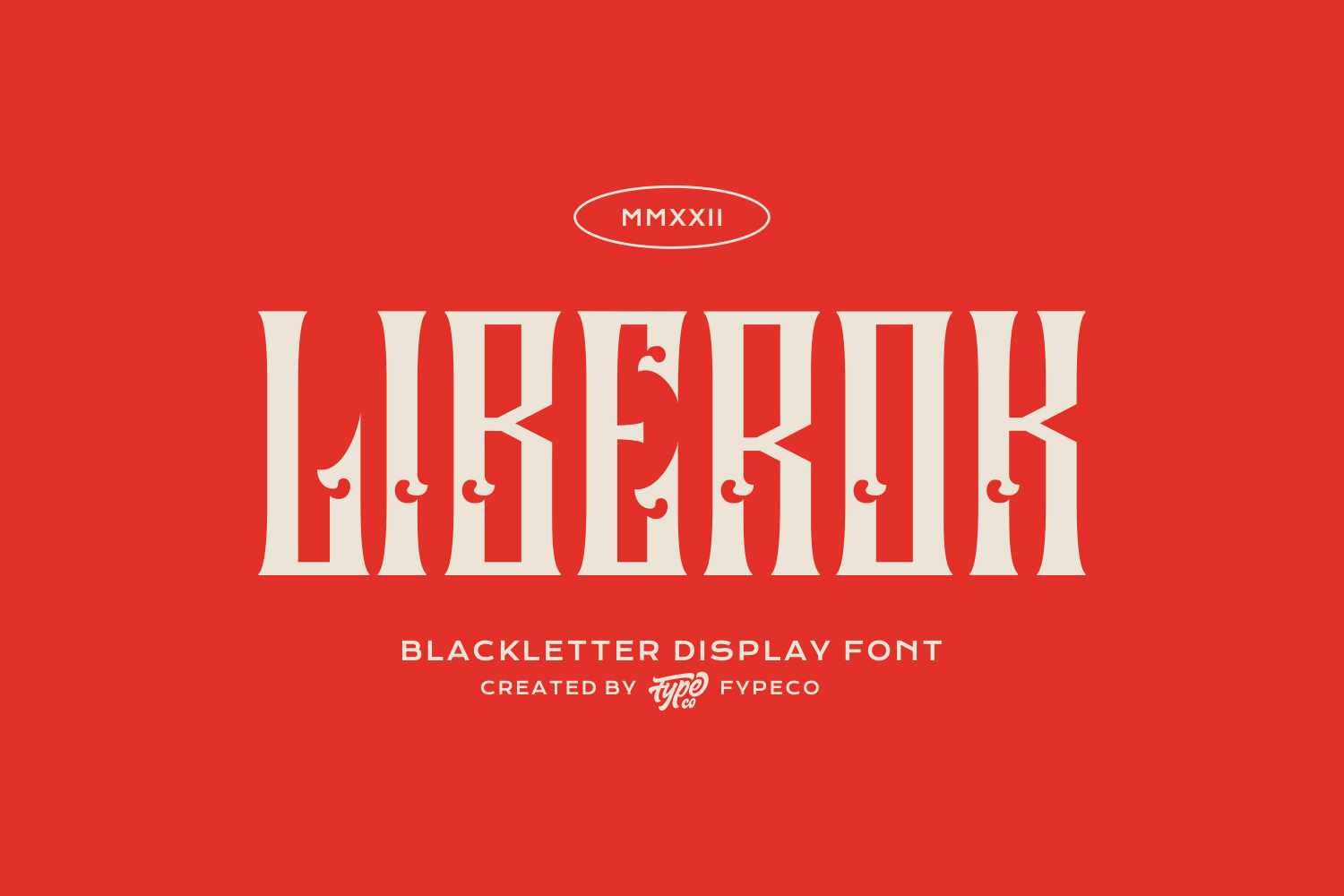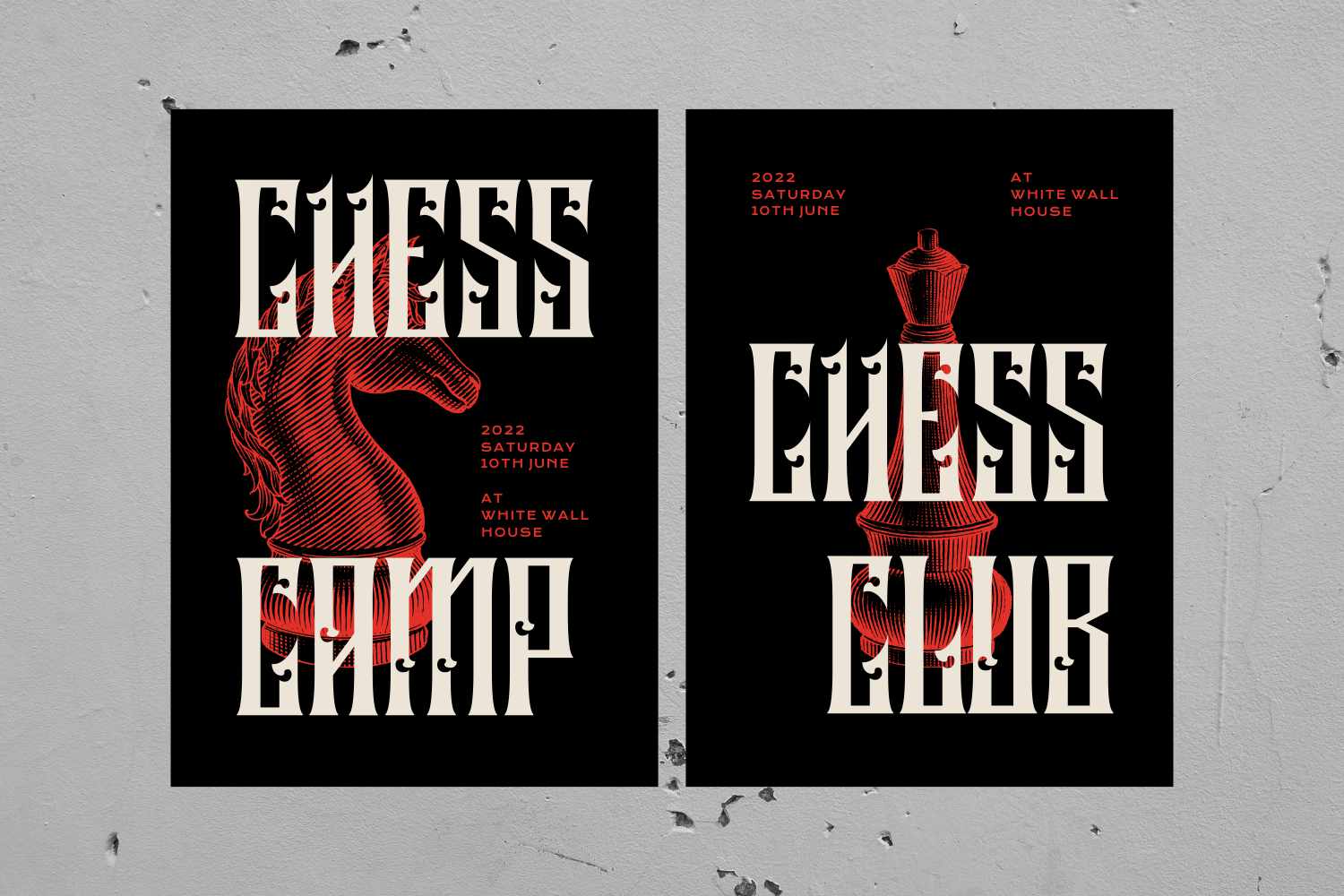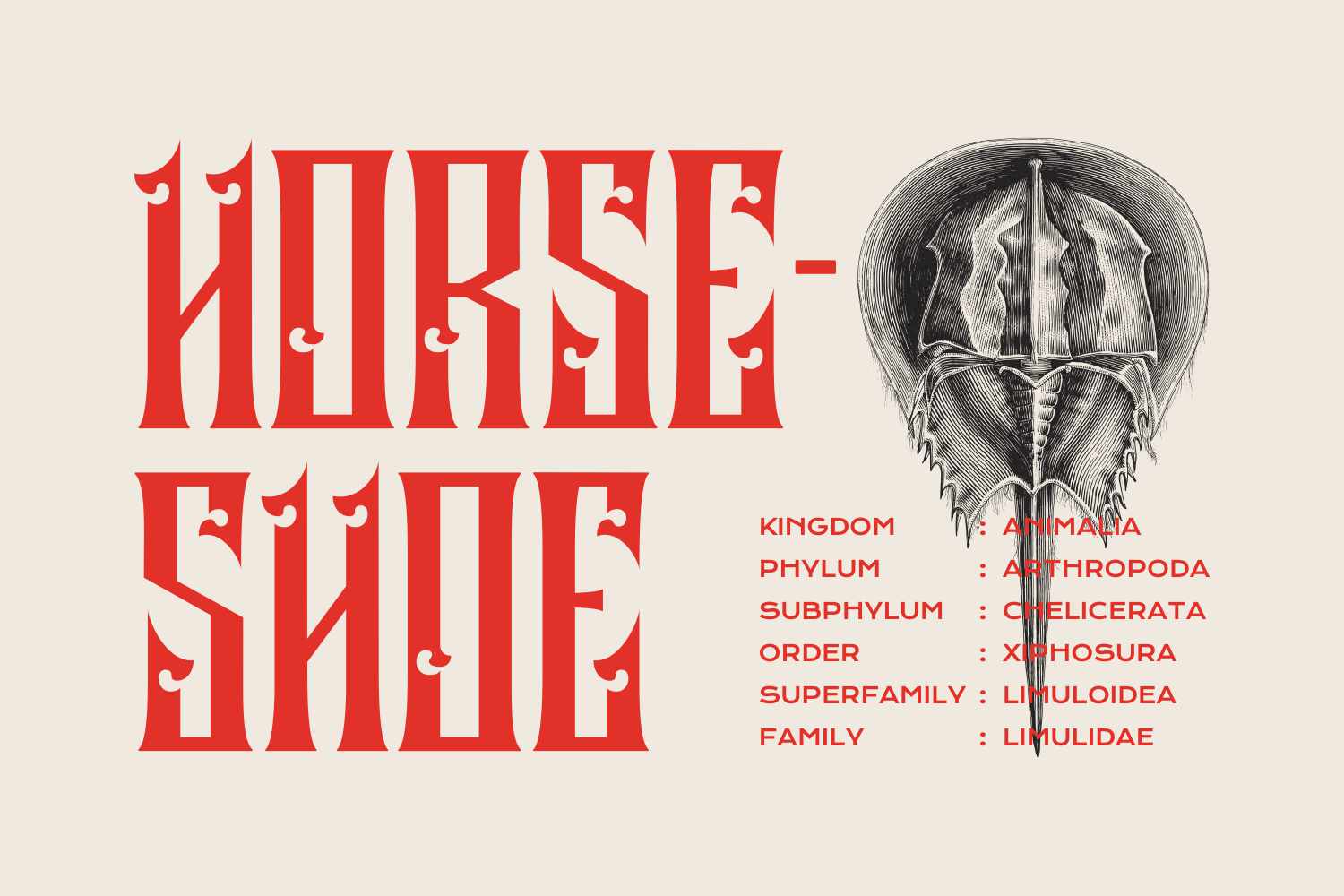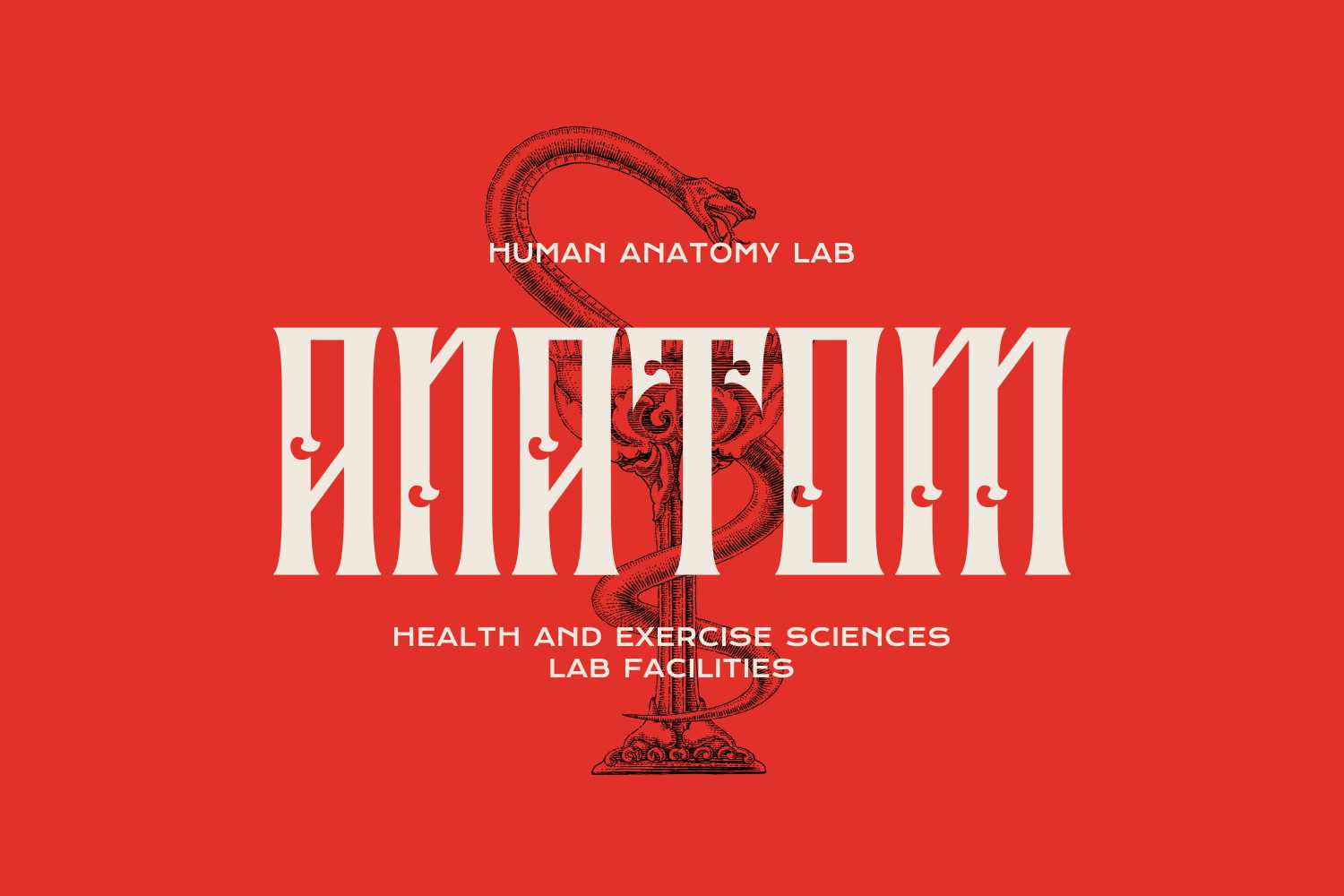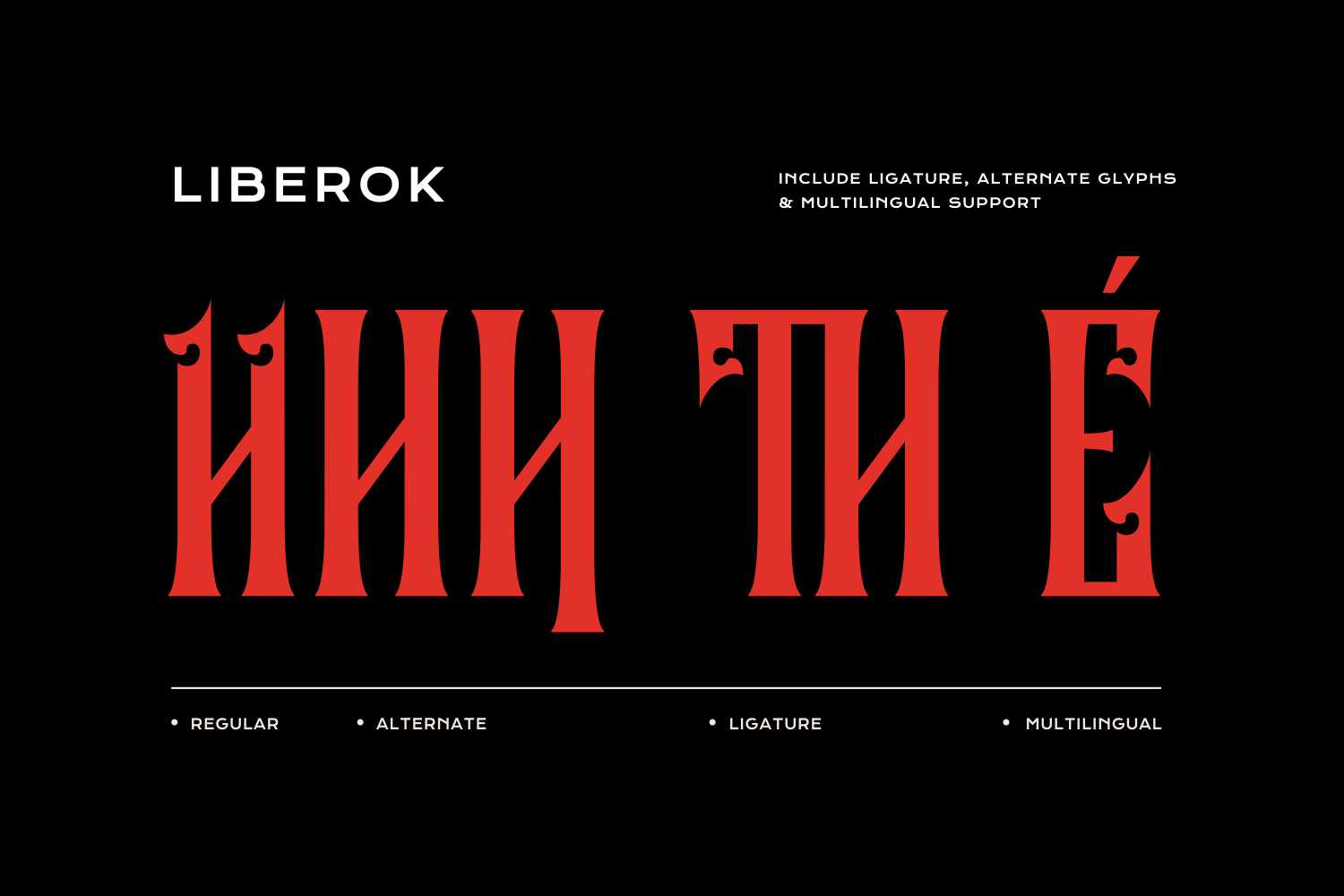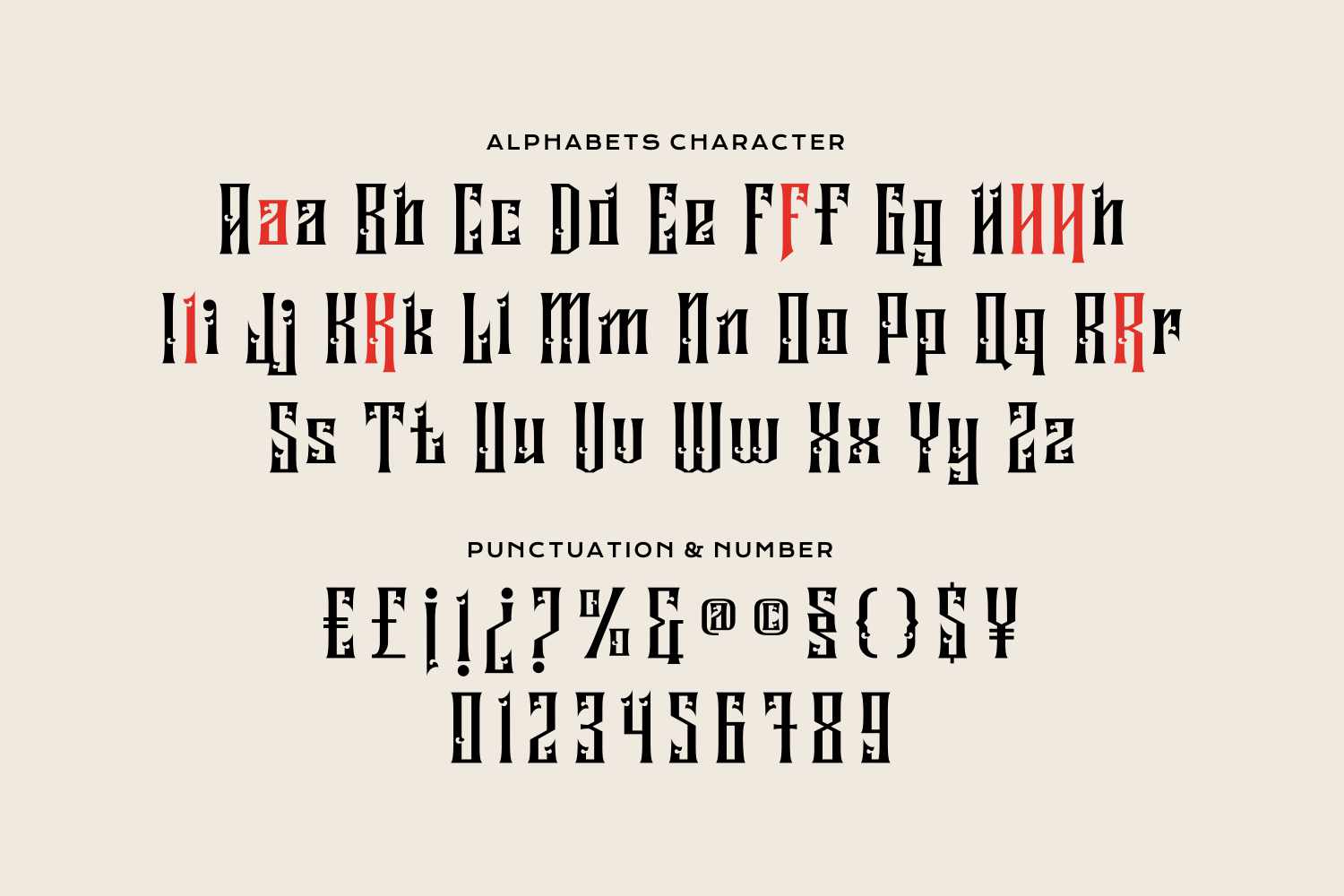
Liberok is a bold blackletter display font that brings a modern twist to traditional gothic-inspired letterforms. With its tall, narrow structure and sharp strokes, the font conveys a sense of strength, confidence, and authority. The unique ornamental cuts and elegant alternates make it versatile for both contemporary and vintage-inspired designs. Perfect for posters, music covers, editorial layouts, and branding that seeks to stand out with a dramatic flair.
Designed with multiple stylistic sets, ligatures, and multilingual support, Liberok is not only visually striking but also highly functional. Whether you’re working on merchandise, logos, event promotions, or creative headlines, this font adds an unmistakable identity to your project. Its combination of classic blackletter roots and modern readability makes it a must-have for designers looking to blend tradition with bold innovation.
Liberok